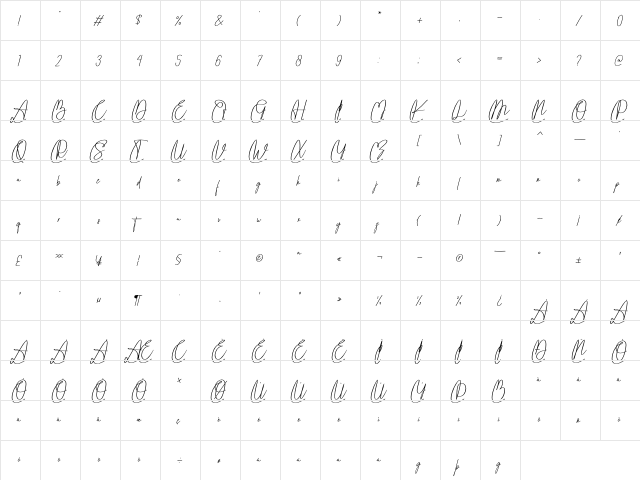
Vippa Willette Regular
Design Context for Vippa Willette Typeface
Vippa Willette is a composed and adaptable typeface that performs quietly and consistently across a wide range of design contexts.